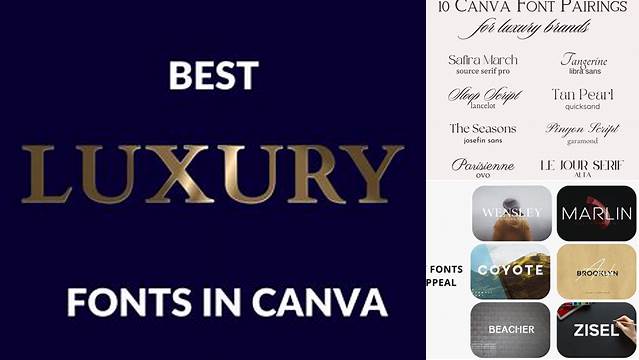
Free Luxury Fonts: Elevate Your Design Game
Hey guys! Ever wanted to give your designs that extra oomph, that touch of class that screams luxury? Well, you're in luck! Finding the perfect luxury fonts free to use can really take your project to the next level without breaking the bank. Let's dive into how you can snag some amazing fonts and make your creations shine.
1. What Defines a Luxury Font?
So, what exactly makes a font feel luxe? It's more than just a fancy typeface. Luxury fonts free to use often have unique characteristics like elegant serifs, graceful curves, and a sophisticated overall design. Think of brands like Chanel or Gucci – their fonts aren't just readable; they evoke a sense of high-end quality. Identifying these traits is key to picking the right font for your project. Whether it’s for a wedding invitation, a brand logo, or a website header, the right luxury font can instantly elevate the design. The details matter a lot; things like the thickness of the strokes, the spacing between letters, and the overall balance of the font all contribute to its luxurious feel. Many designers spend hours tweaking fonts to achieve that perfect balance. A good starting point is to look at fonts used by established luxury brands and see what elements they have in common. Don’t be afraid to experiment with different combinations to find something that truly captures the essence of luxury for your specific project. Remember, it’s not just about the font itself, but how you use it within your design. Pairing a luxury font with the right colors, images, and layout can amplify its impact and create a cohesive, high-end look. Always consider the context in which the font will be used, and ensure it aligns with the overall aesthetic you’re aiming for.
2. Best Websites to Download Luxury Fonts for Free
3. Serif Fonts: The Epitome of Luxury
When you think of luxury fonts, serif fonts probably come to mind first. These fonts, with their little decorative strokes, exude a sense of tradition, elegance, and sophistication. Think of fonts like Times New Roman or Garamond – classics that have been used in high-end publications and branding for decades. Luxury fonts free to use in the serif category can be found with a bit of searching, and they're perfect for adding a touch of class to your designs. Serifs give a more formal and polished feel, making them ideal for projects that need to convey authority and trustworthiness. Different types of serifs can evoke different emotions; for example, bracketed serifs tend to look more traditional, while hairline serifs can appear more modern and minimalist. Choosing the right serif style is crucial for achieving the desired effect. When selecting a luxury font from the serif family, consider the weight and spacing of the letters. A font that is too heavy can look clunky, while one that is too light may be difficult to read. Proper spacing is essential for legibility and creating a balanced, harmonious look. Also, think about how the serif font will pair with other fonts in your design. A good rule of thumb is to contrast a serif font with a sans-serif font to create visual interest and hierarchy. This can help draw the reader’s eye to the most important elements of your design. Experiment with different combinations until you find one that feels just right. Remember, the goal is to create a sense of luxury and sophistication, so choose your fonts carefully.
4. Sans-Serif Fonts: Modern Luxury
Don't count out sans-serif fonts when looking for luxury fonts free to use! While serifs often get all the attention, a clean and modern sans-serif can also convey a sense of understated elegance. Think of brands like Apple or Calvin Klein – their use of simple, minimalist sans-serif fonts speaks volumes about their brand identity. The key is to choose a sans-serif font that has a well-balanced design and a sophisticated feel. Look for fonts with subtle variations in stroke weight or unique letterforms that set them apart from the crowd. Avenir, Helvetica, and Futura are all great examples of sans-serif fonts that can be used to create a luxury look. When using a sans-serif font for a high-end design, pay attention to the kerning (the spacing between letters). Poor kerning can make even the most beautiful font look awkward and unprofessional. Take the time to adjust the kerning manually to ensure that the letters are evenly spaced and visually appealing. Also, consider the weight of the font. A lighter weight can create a sense of airiness and elegance, while a heavier weight can convey strength and confidence. Experiment with different weights to see which one works best for your project. Remember, luxury is often about simplicity and refinement, so don't overcomplicate things. A well-chosen sans-serif font can be just as effective as a serif font in creating a high-end look. Focus on finding a font that is both beautiful and functional, and you’ll be well on your way to creating a luxury design that stands out.
5. Script Fonts: Adding a Touch of Elegance
Script fonts, with their flowing lines and handwritten feel, can add a touch of elegance and personality to your designs. While they might not be suitable for large blocks of text, they can be perfect for headlines, logos, and other decorative elements. Finding luxury fonts free to use in the script category can be a bit tricky, as many free script fonts are poorly designed or overused. However, with a little bit of searching, you can find some hidden gems that will elevate your designs. Look for script fonts that have a natural, organic feel and avoid those that look too artificial or contrived. A well-designed script font should have smooth, flowing lines and subtle variations in stroke weight. It should also be easy to read, even at smaller sizes. When using a script font, be mindful of the context in which it will be used. Script fonts are best suited for projects that need to convey a sense of luxury, romance, or creativity. They can be particularly effective for wedding invitations, branding materials, and packaging designs. However, they may not be appropriate for more serious or professional projects. To maximize the impact of a script font, pair it with a simpler, more understated font. This will help to create a visual hierarchy and prevent the design from feeling too overwhelming. Also, pay attention to the colors and textures that you use in your design. A luxury script font can be beautifully complemented by rich, saturated colors and luxurious textures like gold foil or velvet. Experiment with different combinations until you find one that feels just right. Remember, the goal is to create a sense of luxury and sophistication, so choose your fonts and design elements carefully.
6. Monogram Fonts: Personalized Luxury
Monogram fonts are a fantastic way to add a personalized and luxury touch to your designs. These fonts, often featuring intertwined or stylized letters, are perfect for creating custom logos, invitations, and branding materials. While you might think you need to pay a premium for high-quality monogram fonts, there are actually several luxury fonts free to use that can help you achieve a sophisticated and unique look. Monogram fonts can range from classic and traditional to modern and minimalist, so it's important to choose one that aligns with your brand's aesthetic. Look for fonts that have clean lines, elegant curves, and a sense of balance. The letters should be easy to distinguish from one another, even when they are intertwined. When using a monogram font, consider the color palette and textures that you use in your design. A luxury monogram can be beautifully enhanced by using metallic colors like gold or silver, or by incorporating rich textures like embossing or letterpress. Also, think about the placement of the monogram within your design. It can be used as a focal point or as a subtle accent, depending on the desired effect. To make your monogram truly unique, consider customizing it further by adding your own personal touches. This could involve adding flourishes, changing the letterforms, or incorporating other design elements. The possibilities are endless! Remember, the goal is to create a monogram that reflects your brand's identity and conveys a sense of luxury and sophistication. So, take your time, experiment with different options, and don't be afraid to get creative.
7. Display Fonts: Making a Statement
When you need to make a bold statement, display fonts are your go-to choice. These fonts are designed to grab attention and create a strong visual impact. While they might not be suitable for body text, they are perfect for headlines, logos, and other prominent design elements. Finding luxury fonts free to use in the display category can be a bit challenging, as many free display fonts are either poorly designed or overly trendy. However, with a little bit of searching, you can find some hidden gems that will elevate your designs. Look for display fonts that have unique and interesting letterforms, but are still easy to read. The font should also be well-balanced and visually appealing. When using a display font, consider the overall tone and message that you want to convey. A luxury display font can be used to communicate a sense of sophistication, exclusivity, or creativity. It can also be used to create a sense of excitement or intrigue. To maximize the impact of a display font, pair it with a simpler, more understated font for the body text. This will help to create a visual hierarchy and prevent the design from feeling too overwhelming. Also, pay attention to the colors and textures that you use in your design. A luxury display font can be beautifully complemented by rich, saturated colors and luxurious textures like leather or velvet. Experiment with different combinations until you find one that feels just right. Remember, the goal is to create a design that is both eye-catching and effective, so choose your display font carefully.
8. Pairing Luxury Fonts for Maximum Impact
One of the keys to great design is knowing how to pair fonts effectively. When working with luxury fonts, this is even more crucial. The right font pairing can elevate your design and create a sophisticated, high-end look. Conversely, a poor font pairing can make your design look amateurish and unrefined. So, how do you choose the right fonts to pair with your luxury fonts free to use? A good rule of thumb is to contrast the fonts in terms of style, weight, and size. For example, you might pair a bold serif font with a light sans-serif font, or a large headline font with a smaller body text font. The goal is to create a visual hierarchy that guides the viewer's eye and makes the design easy to read. Another important consideration is the overall tone and message that you want to convey. Do you want your design to feel classic and timeless, or modern and edgy? Choose fonts that reflect the desired aesthetic. It can be helpful to look at examples of successful font pairings for inspiration. There are many websites and blogs that showcase beautiful font combinations, and you can also find inspiration in the designs of established luxury brands. When experimenting with different font pairings, don't be afraid to break the rules and try something unexpected. The most important thing is to trust your instincts and choose fonts that you think look good together. With practice and experimentation, you'll develop a knack for creating stunning font pairings that will take your designs to the next level.
9. How to Identify High-Quality Free Fonts
Not all free fonts are created equal. Some are poorly designed, incomplete, or even contain malware. So, how do you identify high-quality luxury fonts free to use? Here are a few tips: First, look at the font's design. Does it have clean lines, well-balanced proportions, and consistent letterforms? Does it look professional and polished, or does it look amateurish and rushed? Second, check the font's character set. Does it include all the letters, numbers, and symbols that you need? Does it support multiple languages? A high-quality font should have a comprehensive character set that allows you to use it in a variety of contexts. Third, read the font's license agreement. Is it truly free for commercial use, or are there restrictions on how you can use it? Make sure that you understand the terms of the license before using the font in your projects. Fourth, look for reviews and feedback from other designers. Have other people used the font successfully? What are their impressions of its quality and usability? You can often find reviews and feedback on websites like Google Fonts, Font Squirrel, and DaFont. Finally, trust your instincts. If a font looks too good to be true, it probably is. Be wary of fonts that are offered for free without any clear licensing information or contact details. By following these tips, you can avoid downloading low-quality or potentially harmful fonts and focus on finding the best luxury fonts for your projects.
10. Using Luxury Fonts in Logos and Branding
Luxury fonts play a crucial role in creating a strong and memorable brand identity. The font you choose for your logo and branding materials can communicate a lot about your brand's personality, values, and target audience. When choosing a luxury font for your logo, consider the overall message that you want to convey. Do you want your brand to be perceived as sophisticated and elegant, or modern and edgy? Choose a font that reflects the desired aesthetic. It's also important to choose a font that is legible and memorable. Your logo should be easy to recognize, even at small sizes, and it should stand out from the competition. Avoid fonts that are too trendy or generic, as they may not age well. In addition to your logo, you should also use luxury fonts free to use consistently throughout your branding materials, such as your website, business cards, and marketing collateral. This will help to create a cohesive and professional brand image. When using multiple fonts in your branding, be sure to choose fonts that complement each other and create a visual hierarchy. A good rule of thumb is to use one font for your logo and headlines, and another font for your body text. This will help to guide the viewer's eye and make your branding materials easy to read. Remember, your brand identity is one of your most valuable assets, so invest the time and effort to choose luxury fonts that accurately represent your brand and appeal to your target audience.